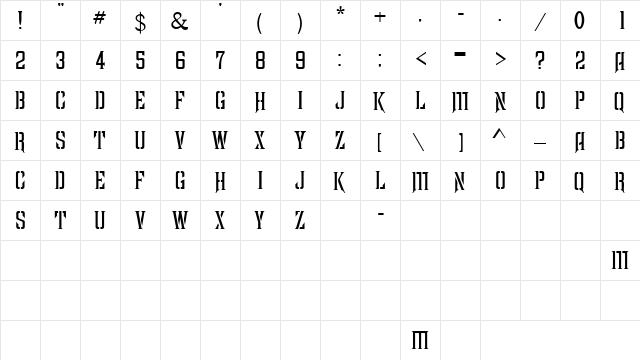
MandataCapsSSK Regular
Design Context for MandataCapsSSK Typeface
MandataCapsSSK takes a measured approach to typography — its balanced proportions and neutral character make it a reliable workhorse for both digital and print work.